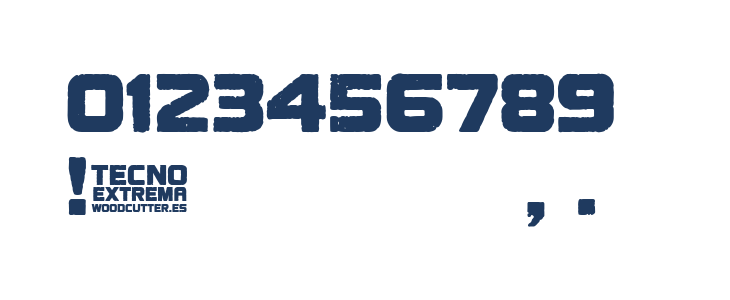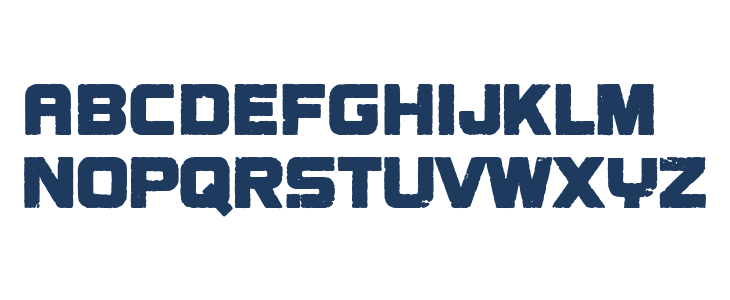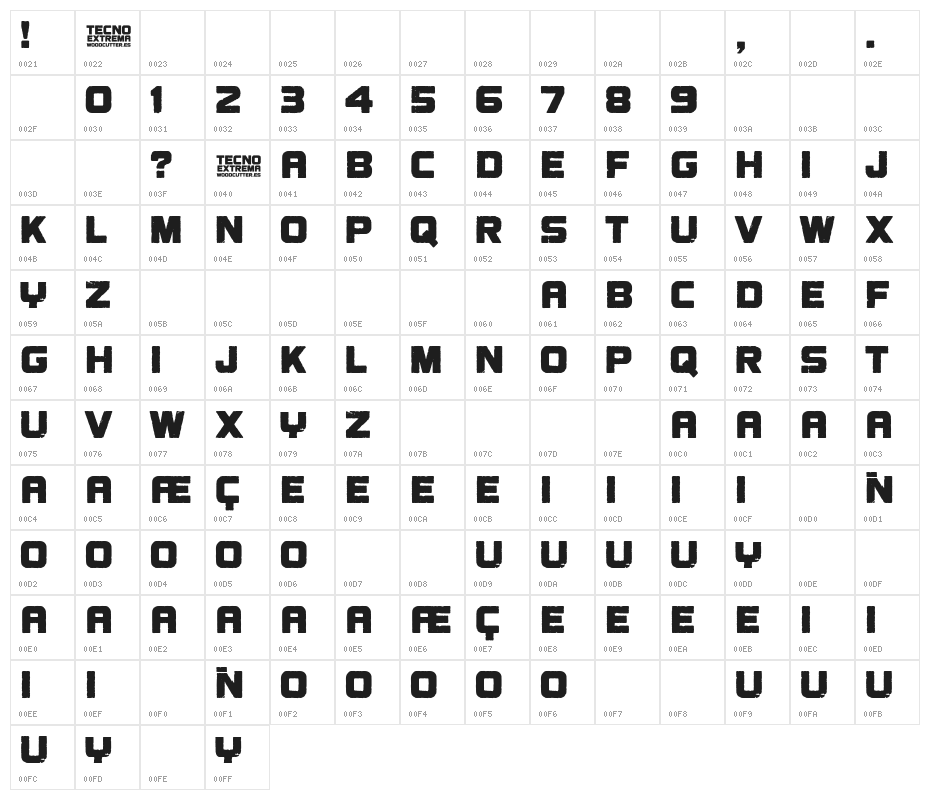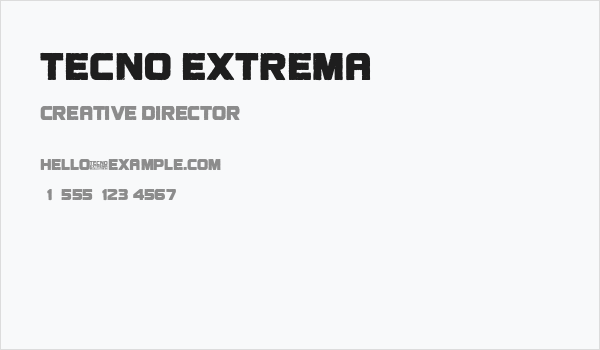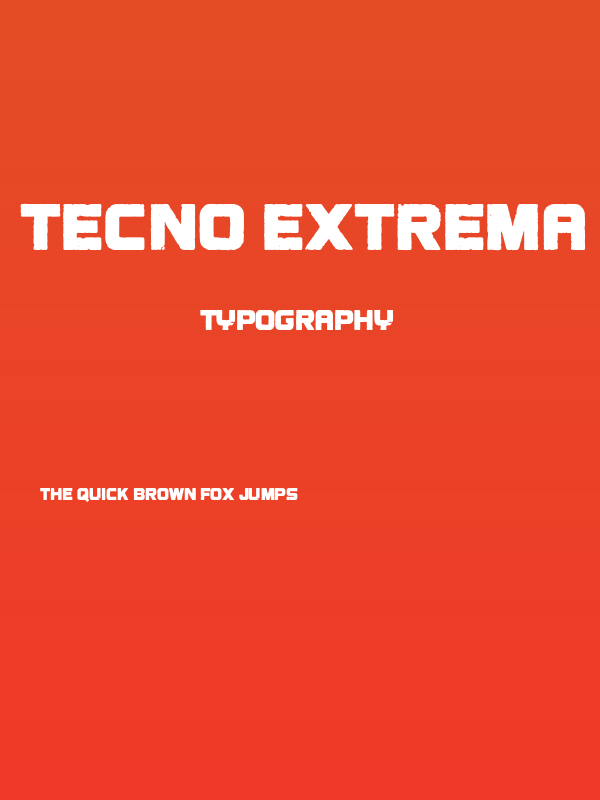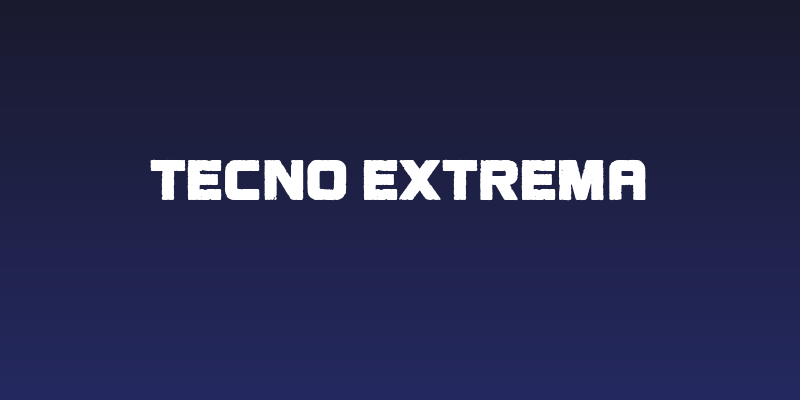
Tecno Extrema Font
Tecno Extrema Description
A bold, geometric sans-serif font with a distressed, grunge texture. The characters are wide and blocky, featuring uniform stroke widths and squared-off edges, with a worn, industrial appearance.
| Overall Style | Decorative, Industrial, Modern, Grunge |
| Use Case | Headlines, Logos, Posters, Display text |
| Proposed Projects | Posters, video game titles, industrial branding, event flyers, sci-fi themes. |